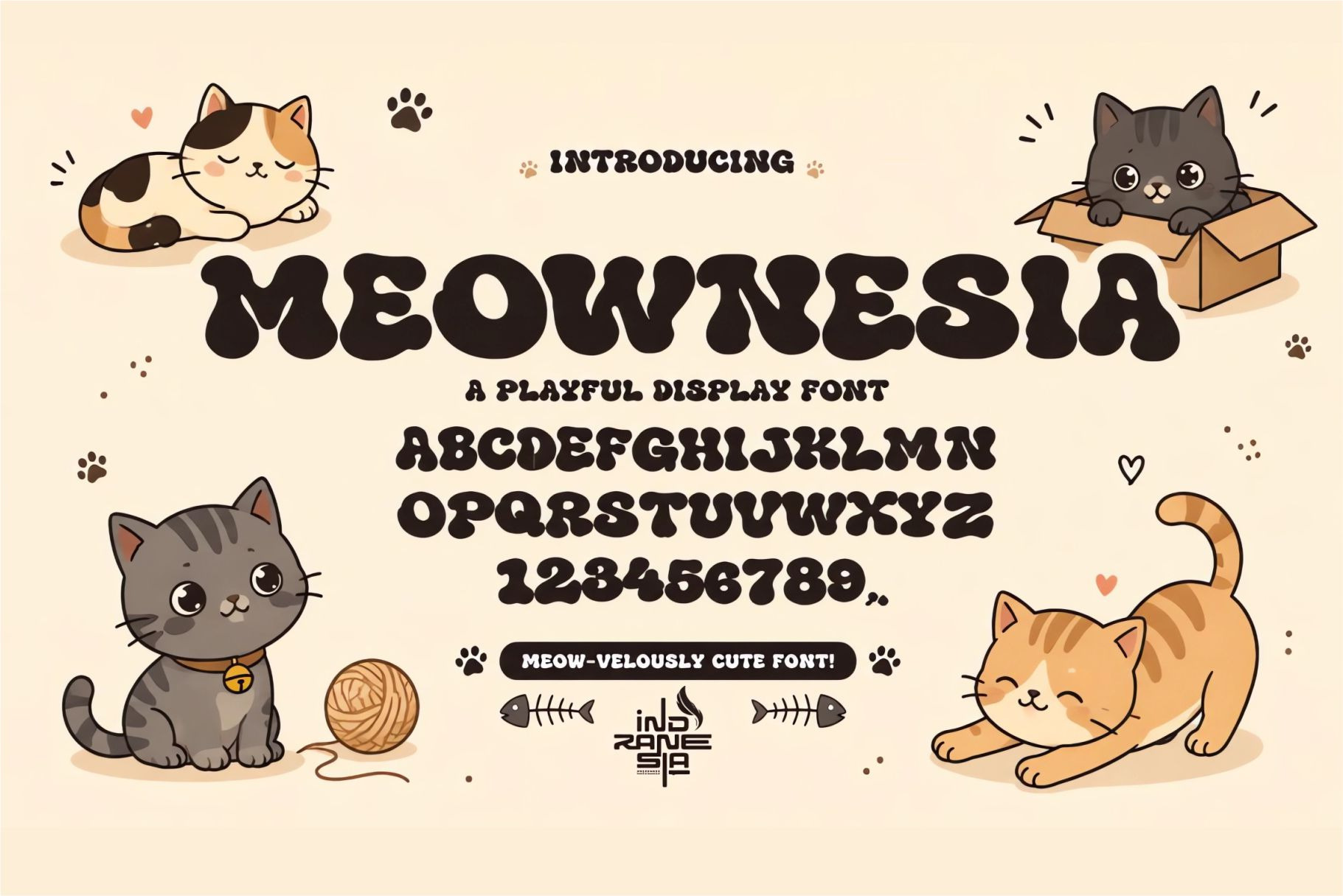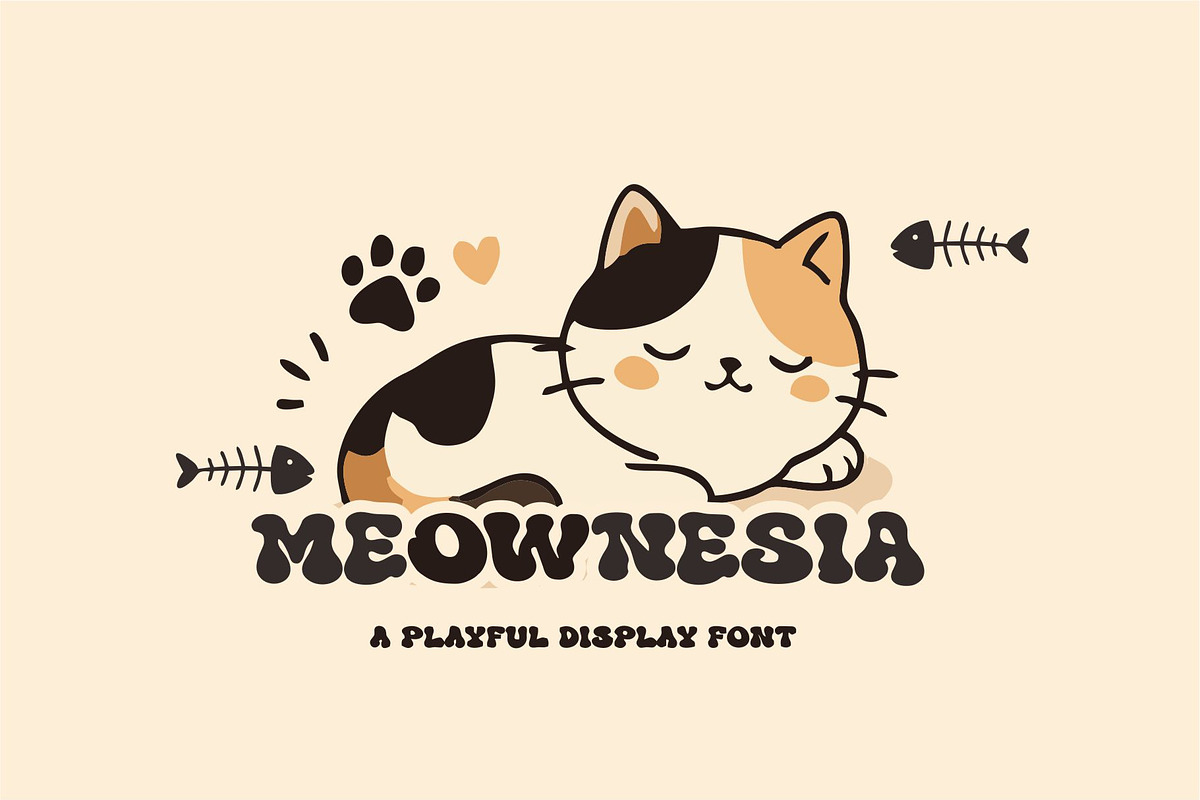
Meownesia–Cute Playful Display Font
Meownesia is a cute, bold, and playful display font inspired by adorable cat vibes. Designed with rounded, bubbly shapes, this font brings a warm, fun, and eye-catching personality to any design.
It’s perfect for creating designs that feel friendly, cheerful, and full of character.
Uppercase letters (A–Z)
Numbers (0–9)
🐾 Cute & playful style with rounded shapes
🐾 Unique handmade feel
🐾 Bold and highly visible
🐾 Perfect for display and headline use
🐾 Great for themed and character-based designs
Best For
Meownesia works great for:
Logos (especially cute or food brands)
Posters & social media content
Merchandise (t-shirts, stickers, tote bags)
Product packaging
Kids designs & educational materials
Pet-themed or fun branding projects
Why It’s Useful
In a world full of clean and minimal fonts, Meownesia stands out by adding emotion and personality to your design. It helps:
Grab attention instantly
Make your brand feel more friendly and approachable
Increase visual appeal, especially for younger audiences